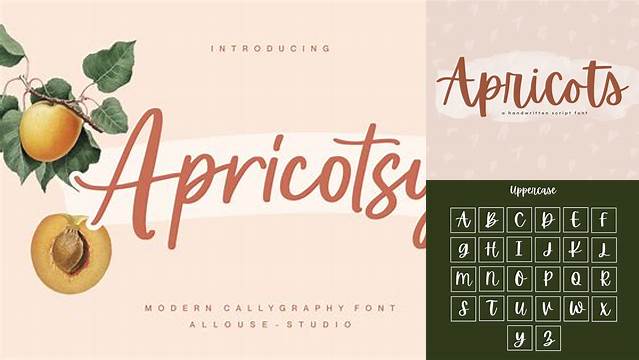
Free Apricot Fonts: Your Guide To Beautiful Typography
Hey guys! Are you on the hunt for the perfect free fonts to make your projects pop? Look no further! In this comprehensive guide, we're diving deep into the world of apricot-inspired and other fantastic typefaces that will add a touch of elegance and uniqueness to your designs. Whether you're a seasoned designer or just starting out, understanding the power of typography is crucial. The right font can elevate your work from simple to stunning, conveying the right message and capturing the attention of your audience. We’ll explore a range of options, from playful and whimsical to clean and professional, ensuring you find the perfect fit for your needs. We will also delve into the technical aspects of font usage, such as licensing, file formats, and best practices for implementation in various design software. This will help you avoid common pitfalls and ensure that your projects look polished and professional. So, grab a cup of coffee, get comfortable, and let’s explore the wonderful world of free fonts together! By the end of this guide, you’ll be equipped with the knowledge and resources to choose and use fonts effectively, enhancing your design projects and making a lasting impression. Remember, typography is more than just picking a pretty font; it’s about crafting a visual language that speaks to your audience.
What are Apricot-Inspired Fonts?
So, what exactly do we mean by "apricot-inspired fonts?" Well, think of the fruit itself – the soft, warm color, the smooth texture, and the overall feeling of freshness and vibrancy. Apricot-inspired fonts often evoke these qualities, featuring gentle curves, a friendly demeanor, and a touch of sophistication. These fonts are versatile and can be used in a variety of projects, from branding and logos to websites and print materials. They often possess a certain elegance and readability that makes them a favorite among designers. The key is to find fonts that capture the essence of the apricot – its warmth, its subtle sweetness, and its natural beauty. These fonts might have rounded terminals, a slightly condensed structure, or a calligraphic flair that mimics the organic forms found in nature. Think of fonts that have a handwritten feel, or those that have a smooth, flowing quality. Apricot-inspired fonts don’t necessarily have to be overtly fruity or whimsical; they can also be sophisticated and understated, making them suitable for professional contexts as well. The goal is to choose a font that adds a touch of warmth and personality without being overwhelming or distracting. In the following sections, we will explore specific examples of fonts that capture this essence, providing you with a curated list of options to choose from.
Top Free Apricot-Inspired Fonts
Now for the fun part! Let's dive into some specific free apricot-inspired fonts that you can start using today. First up, we have "Lato," a sans-serif typeface that exudes warmth and approachability. Its rounded terminals and clean lines make it a versatile choice for both headlines and body text. Lato is incredibly readable and works well in a variety of design contexts, from websites and apps to print materials and branding. Next, consider "Open Sans," another excellent sans-serif option. Open Sans is known for its neutral yet friendly appearance, making it a great choice for projects that require a professional touch with a hint of warmth. Its open forms and clear letterforms ensure readability even at small sizes. If you're looking for something with a bit more personality, "Raleway" is a fantastic choice. This elegant sans-serif font features a slightly condensed design and a delicate, sophisticated feel. It's perfect for logos, headings, and other display applications where you want to make a statement. For a touch of whimsy, explore "Playfair Display." This transitional serif typeface has a classic yet contemporary feel, with high contrast and elegant letterforms. It's an excellent choice for headlines and titles, adding a touch of sophistication and charm to your designs. Finally, don't overlook "Montserrat," a geometric sans-serif font that's both modern and versatile. Montserrat's clean lines and geometric forms make it a great choice for a wide range of projects, from websites and apps to branding and print materials. These are just a few examples, of course, and there are many other fantastic free fonts out there waiting to be discovered. The key is to experiment and find the fonts that best suit your individual style and project requirements. Don't be afraid to try different combinations and see what works best for you.